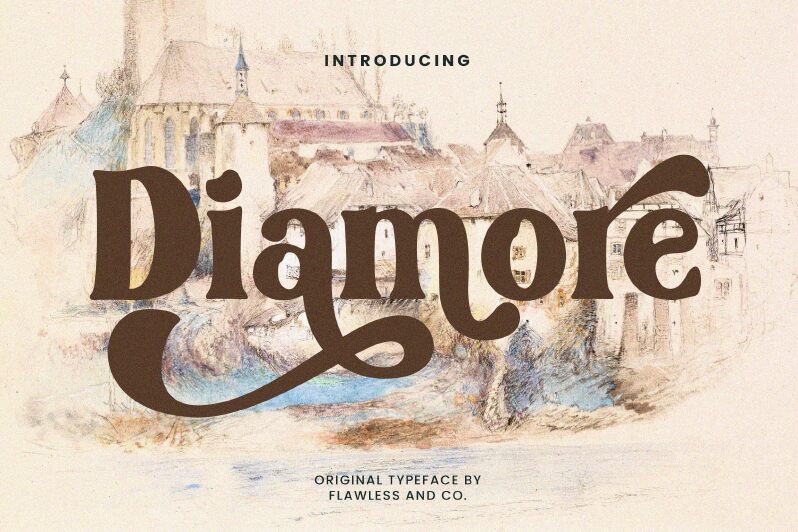
Diamore Regular
Diamore font by Achmad Yani of Flawless and Co. is a bold retro display font with vintage-inspired elegance. Its careful blend of ornate and theatrical styles creates a dramatic flair that captures attention instantly. Decorative elements within the typeface make it ideal for those seeking an unmistakable and distinguished aesthetic.